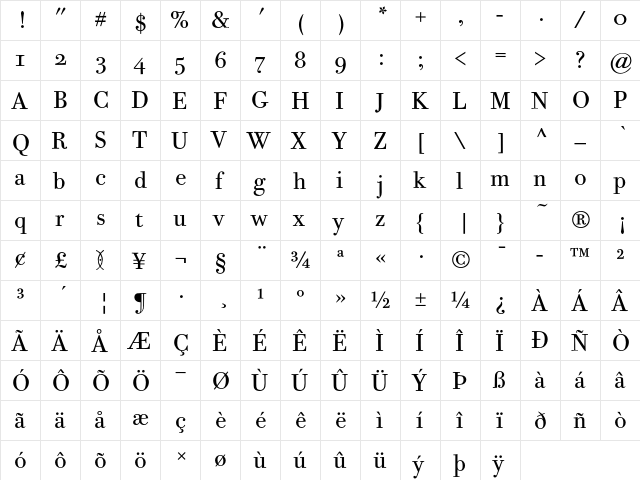
Bodoni Twelve ITC Book OS
Design Context for Bodoni Twelve ITC Typeface
Bodoni Twelve ITC takes a measured approach to typography — its balanced proportions and neutral character make it a reliable workhorse for both digital and print work.
Pro Tip: Pair Bodoni Twelve ITC with a font of contrasting weight or personality to build a more expressive typographic hierarchy.